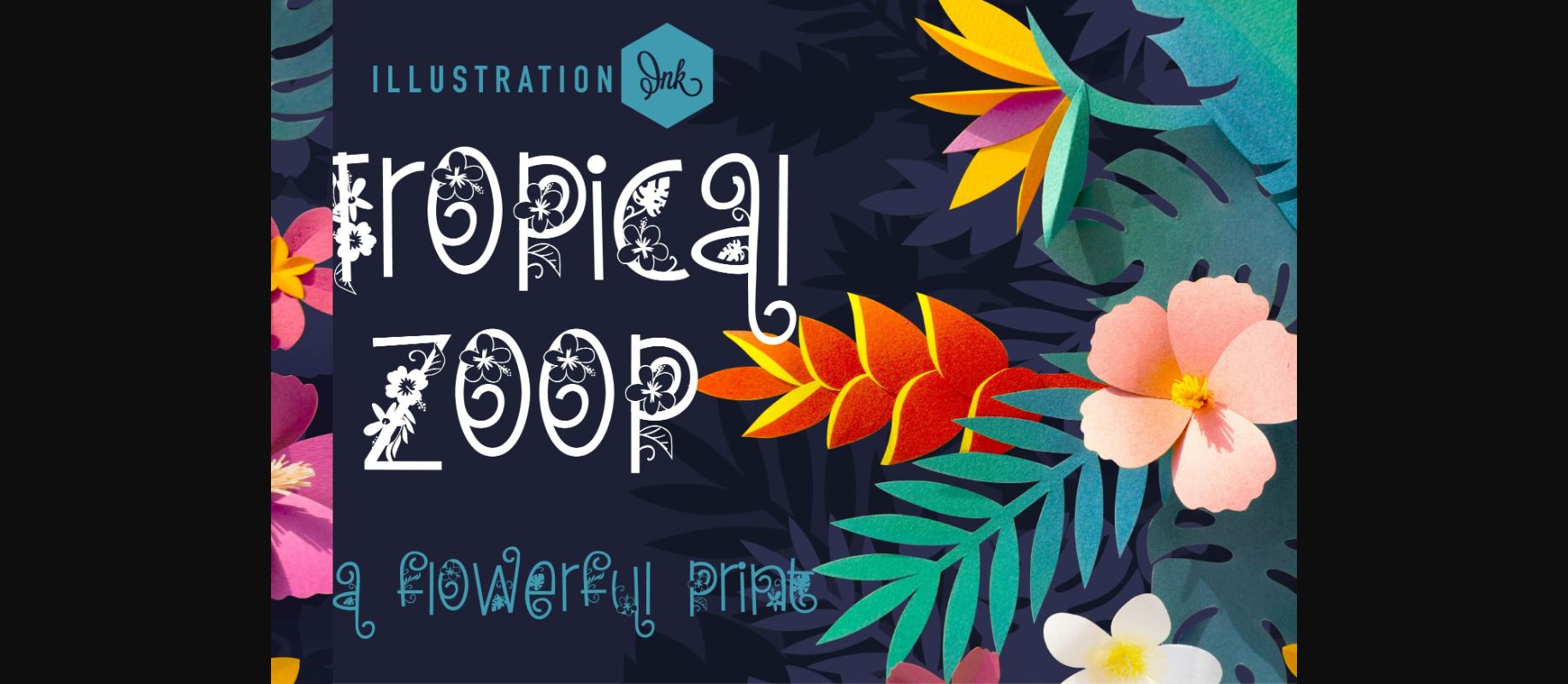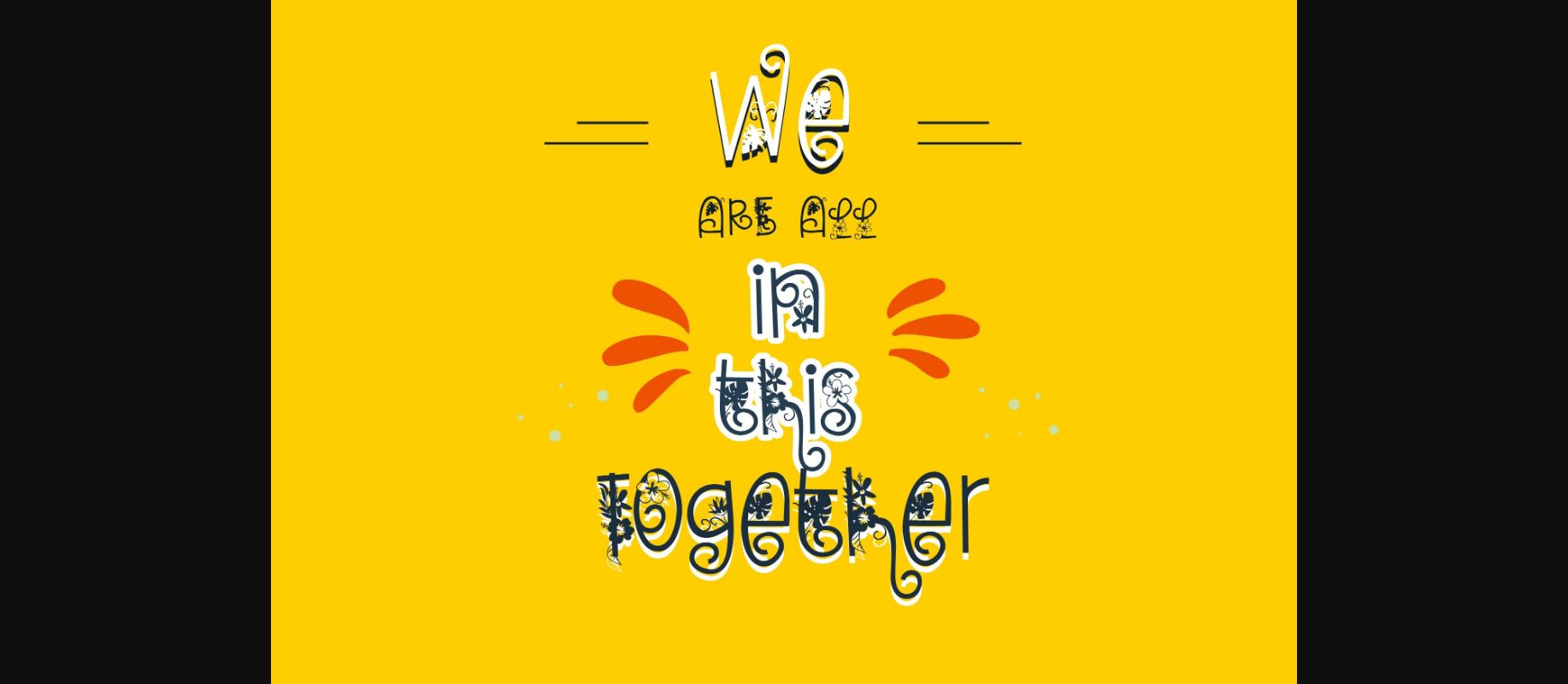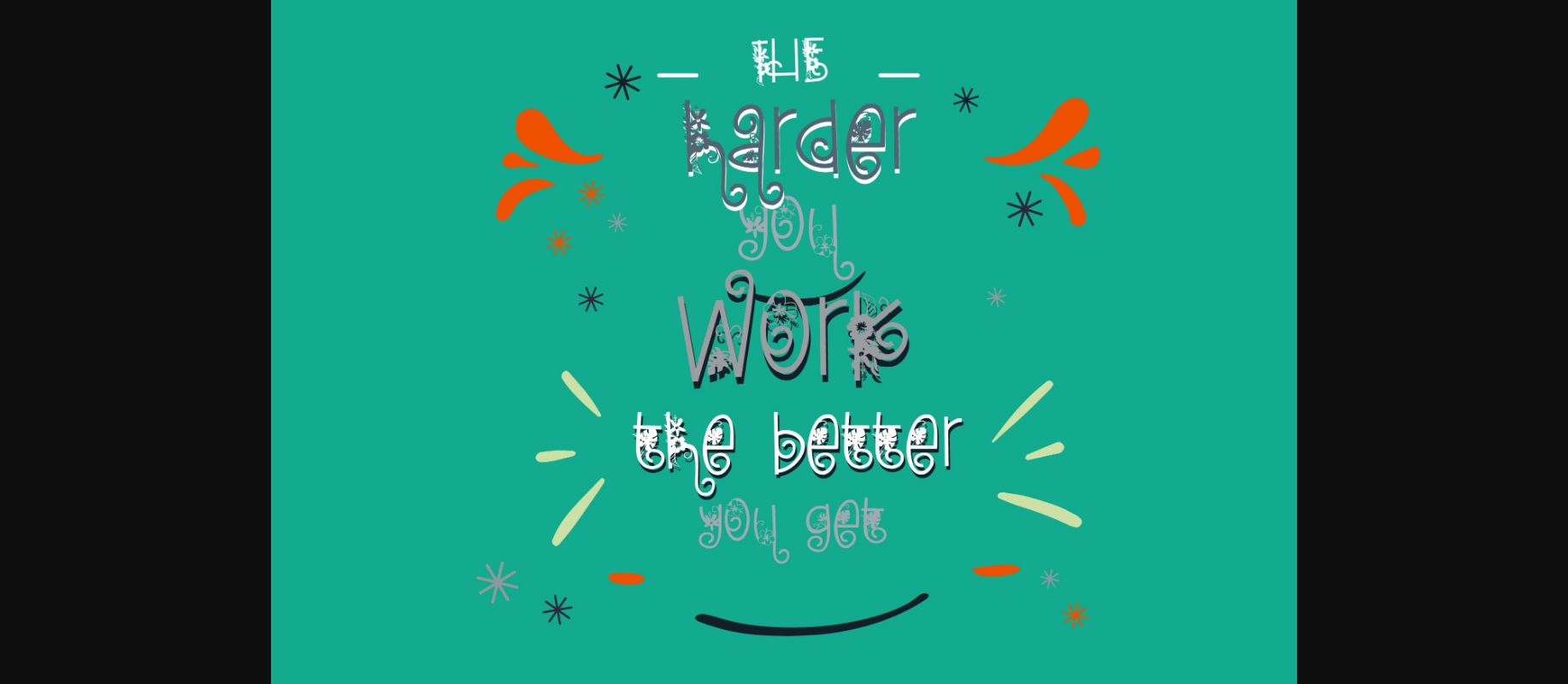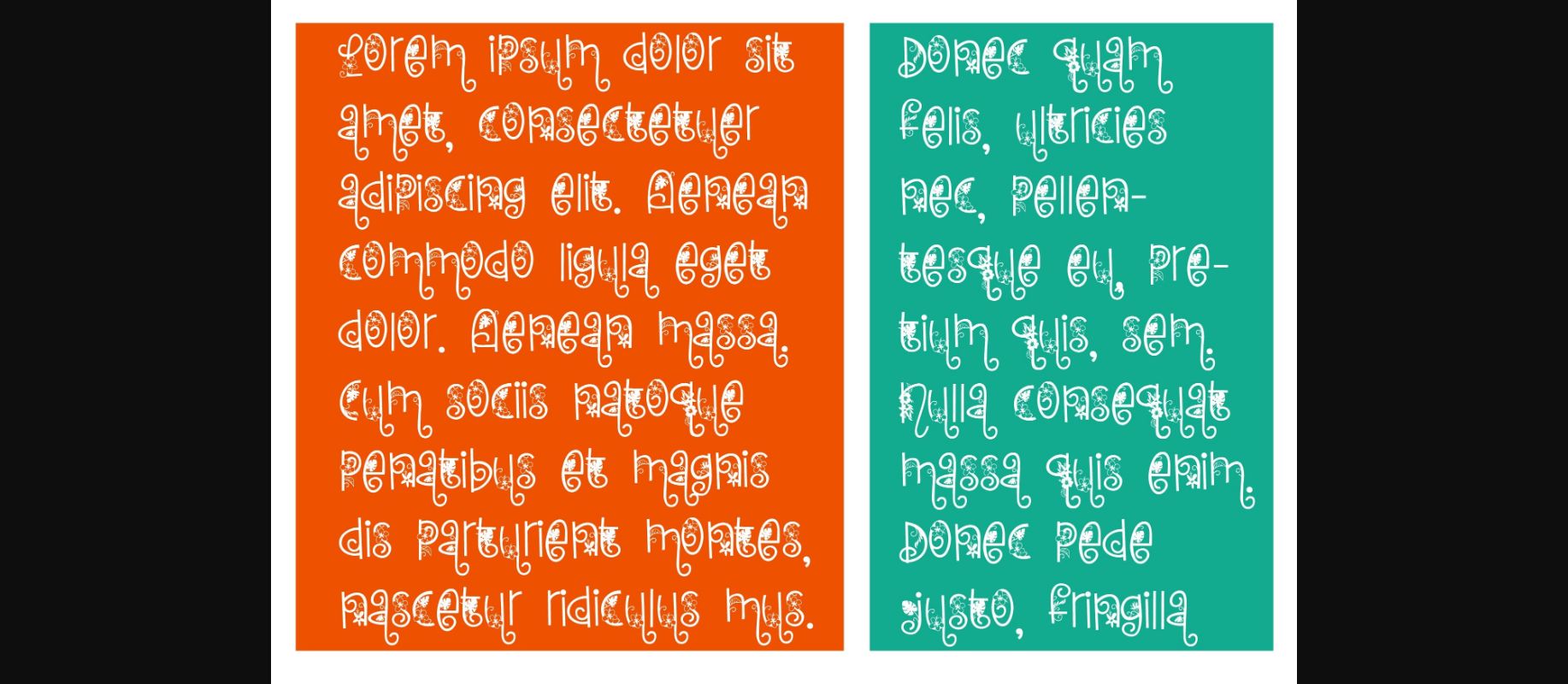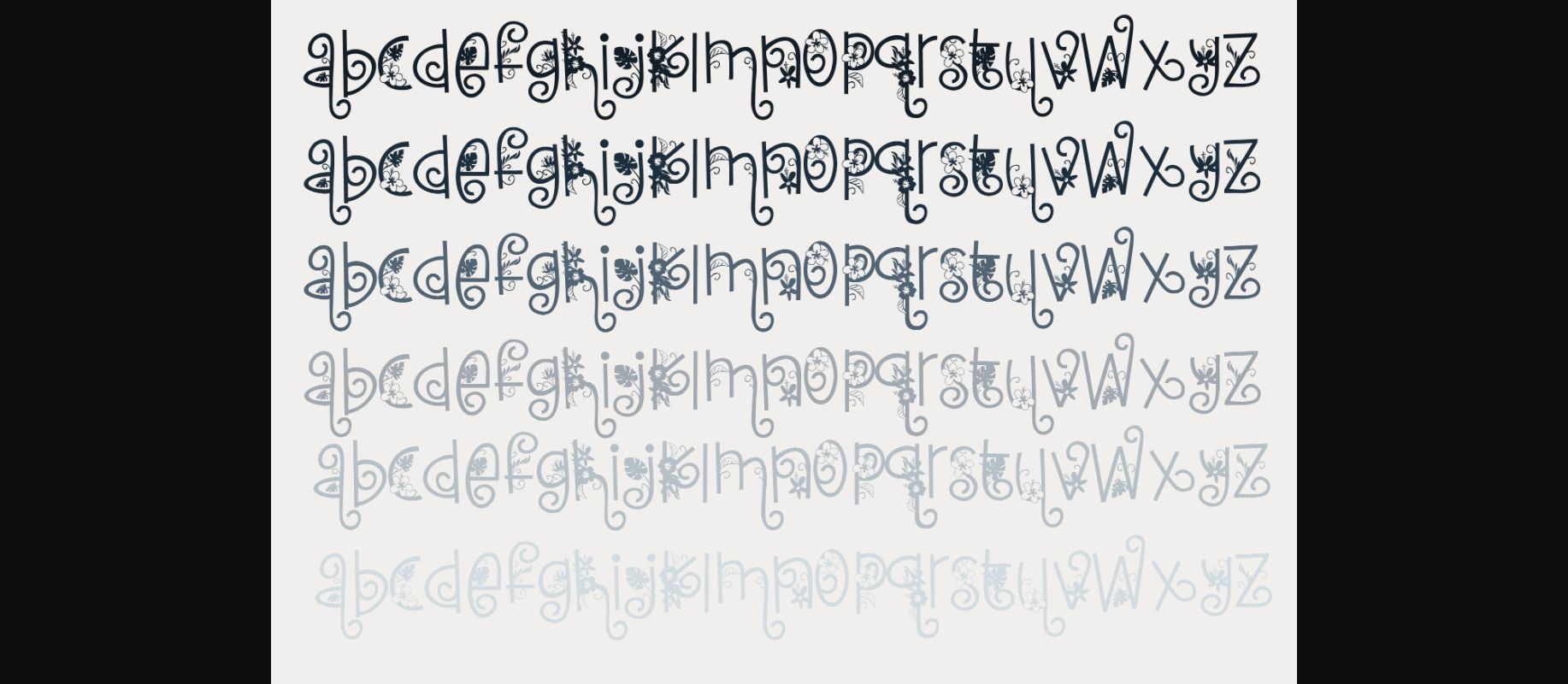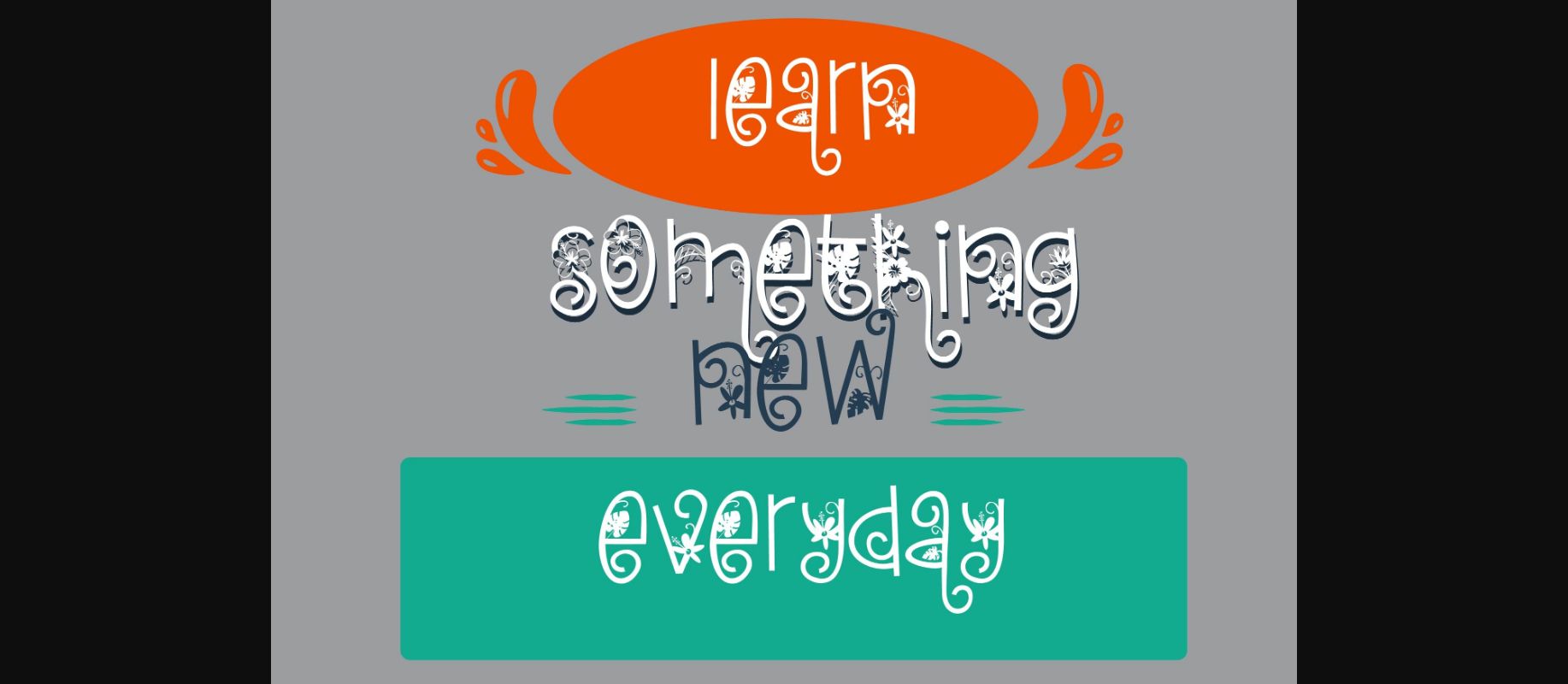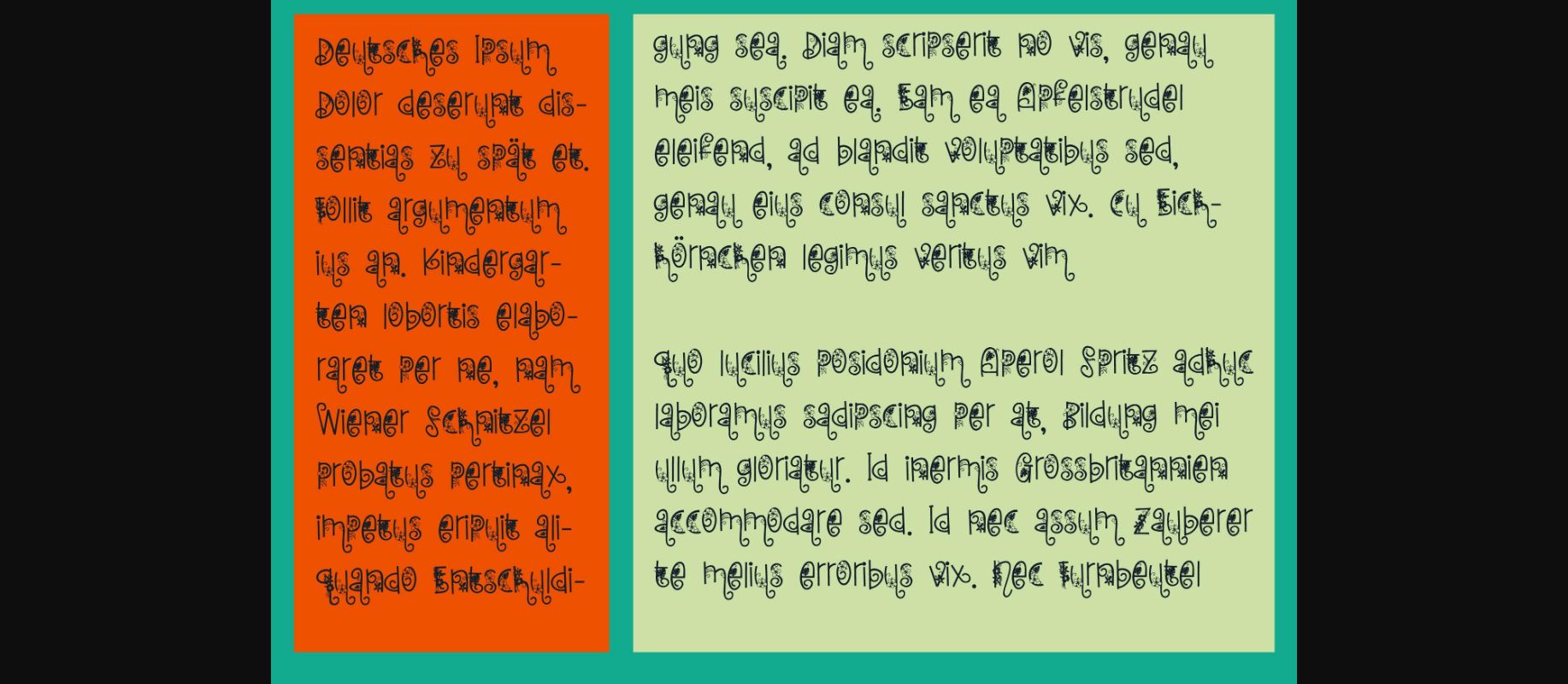
Tropical Zoop Font
About Tropical Zoop Font
Tropical Zoop is a vibrant and whimsical decorative font that transports you to an exotic paradise. With its playful shapes and tropical motifs, it embodies the spirit of a jungle adventure. Ideal for posters, party invitations, and nature-themed projects, Tropical Zoop will infuse your designs with a burst of color and a sense of tropical fun.